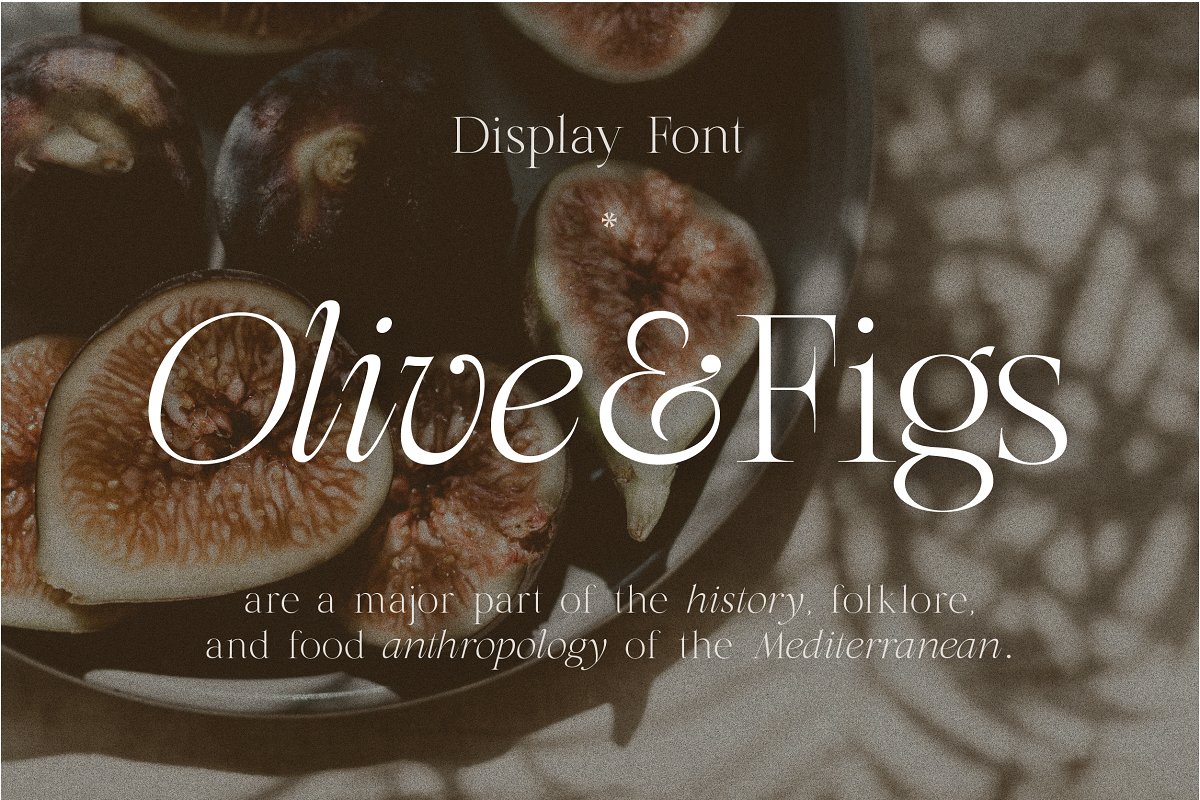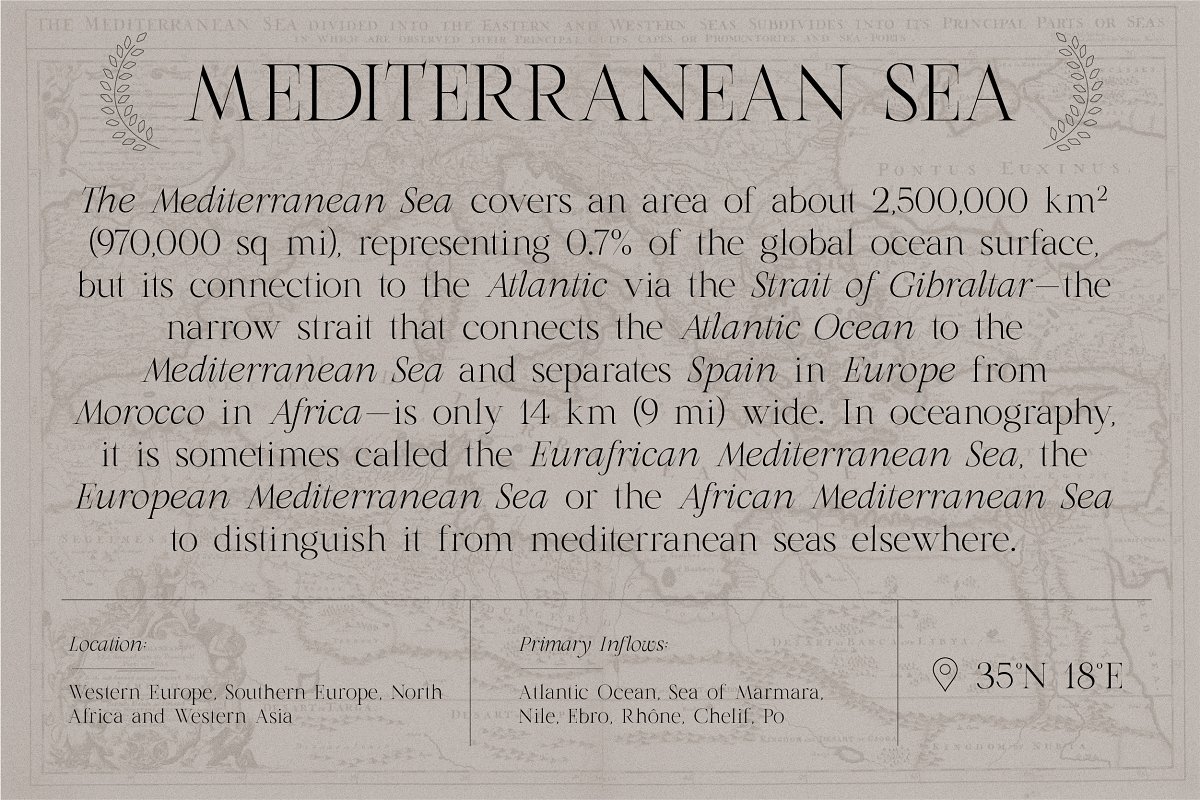
About the Olive and Figs Regal Classic Serif Font
Olive & Figs – a classic Roman-culture-inspired calligraphic serif with elegant, regal, artistic touch, Specially designed for regal, classy projects, perfectly suitable for creating elegant, simple, lifestyle design such as logos, title, packaging and more, A SUMMARY OF WHAT’S INCLUDED:HV Olive & Figs Regular Font (, ttf, , otf & , woff)HV Olive & Figs Italic Font (